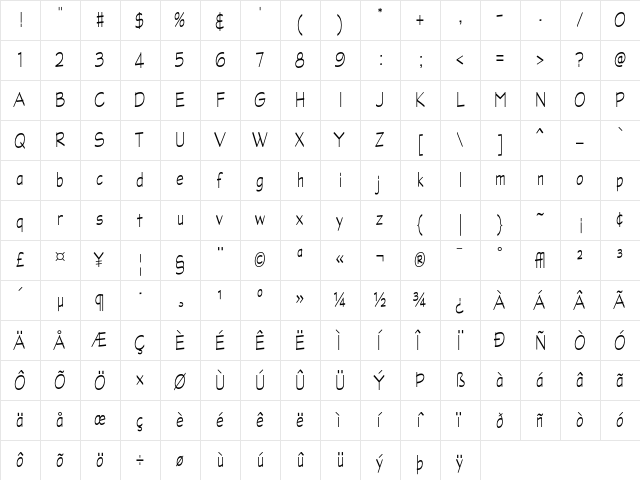
Graphite LightNarrow
Design Context for Graphite Typeface
Graphite offers clean, dependable letterforms without strong stylistic allegiance, making it a practical choice for designers who need flexibility. The delicate stroke weight brings airiness and refinement to layouts. Its narrow stance lets it pack a punch even in space-constrained designs.